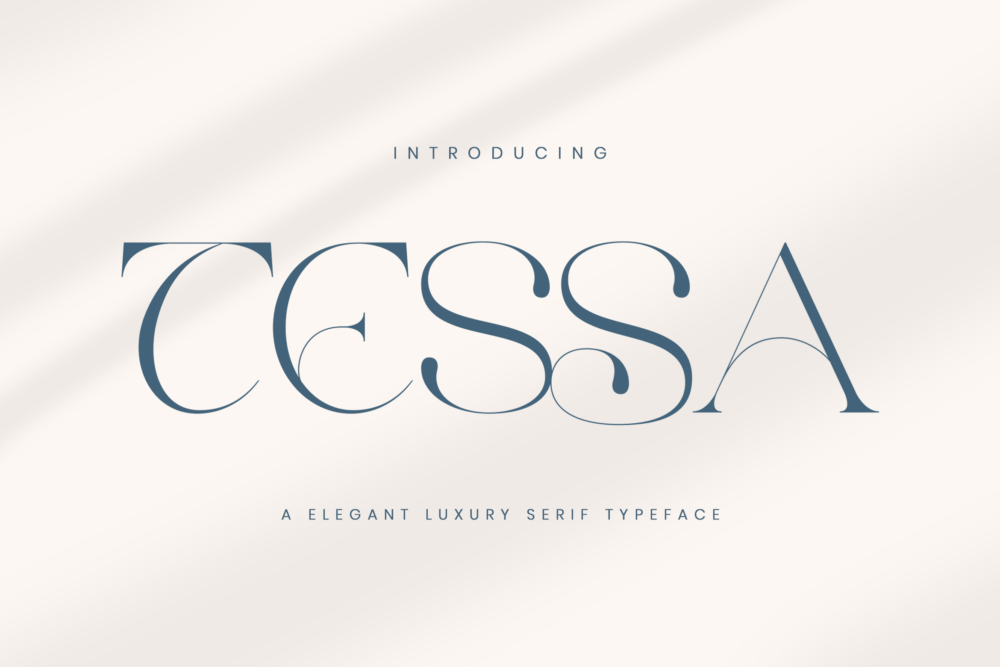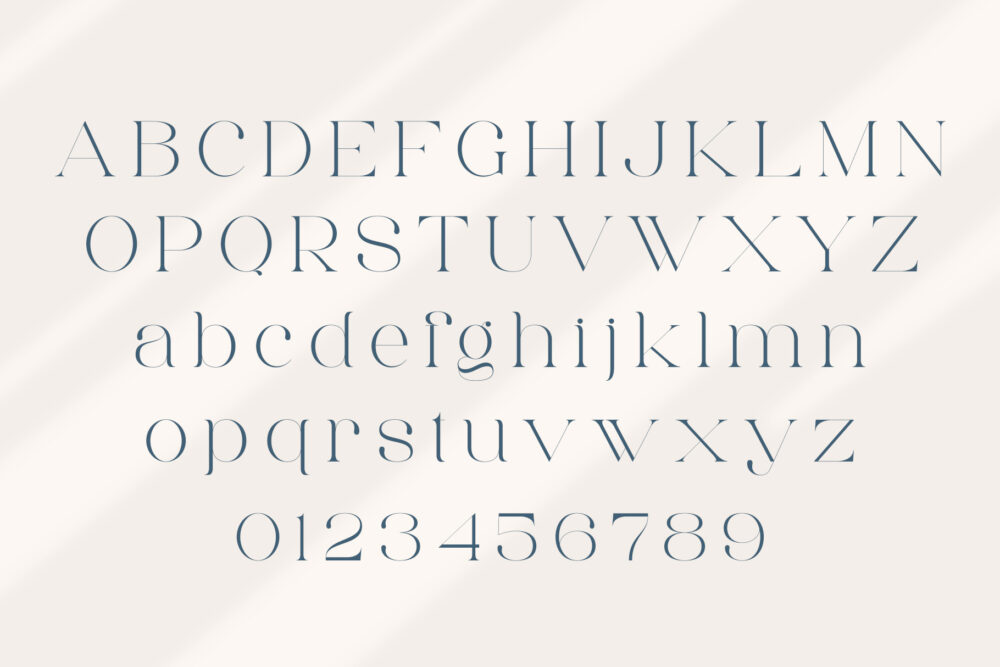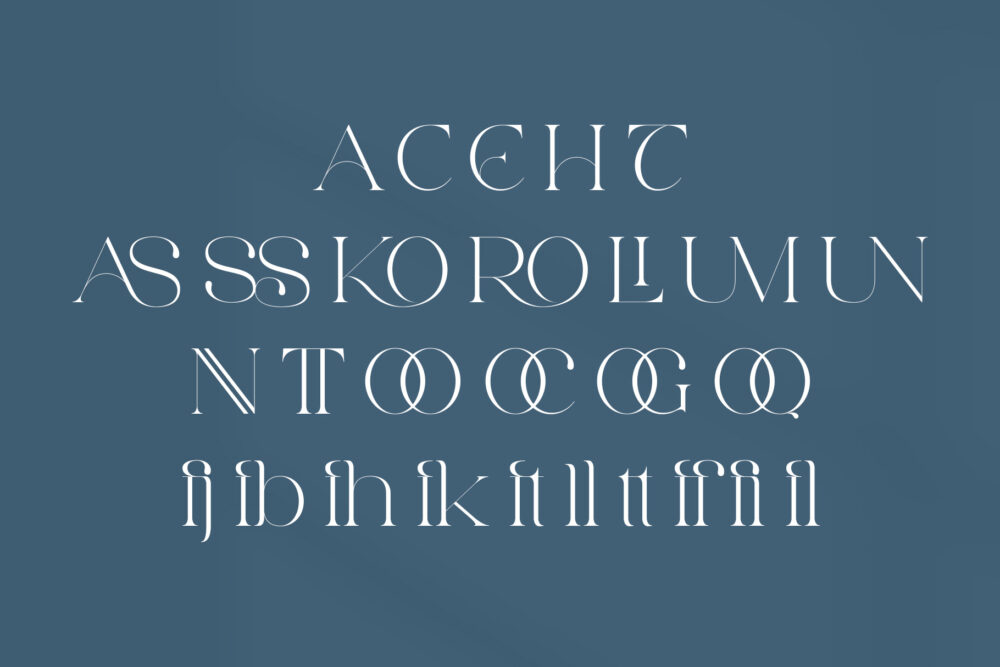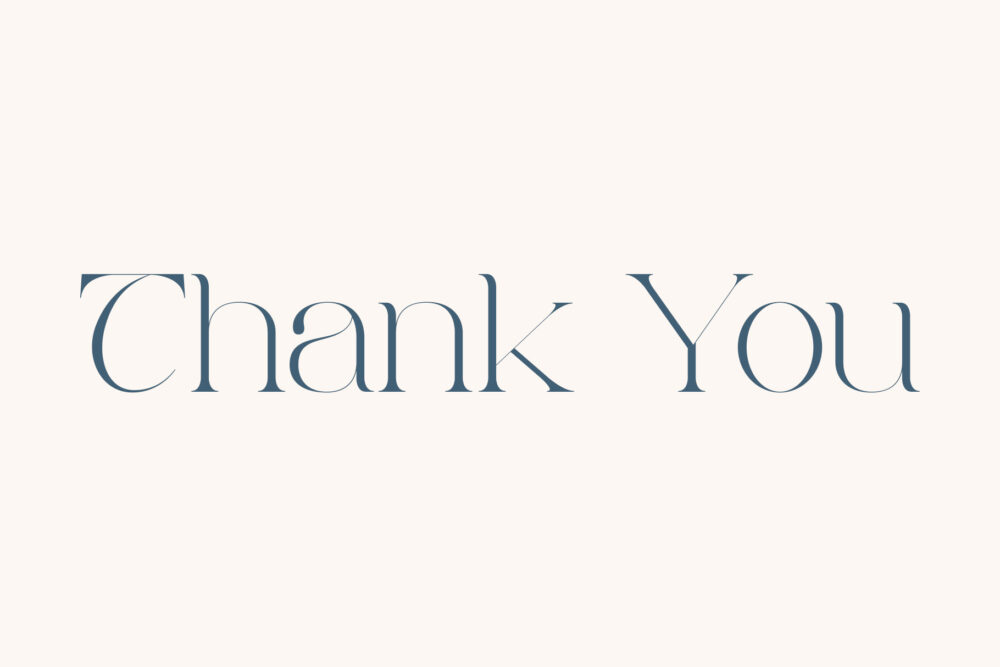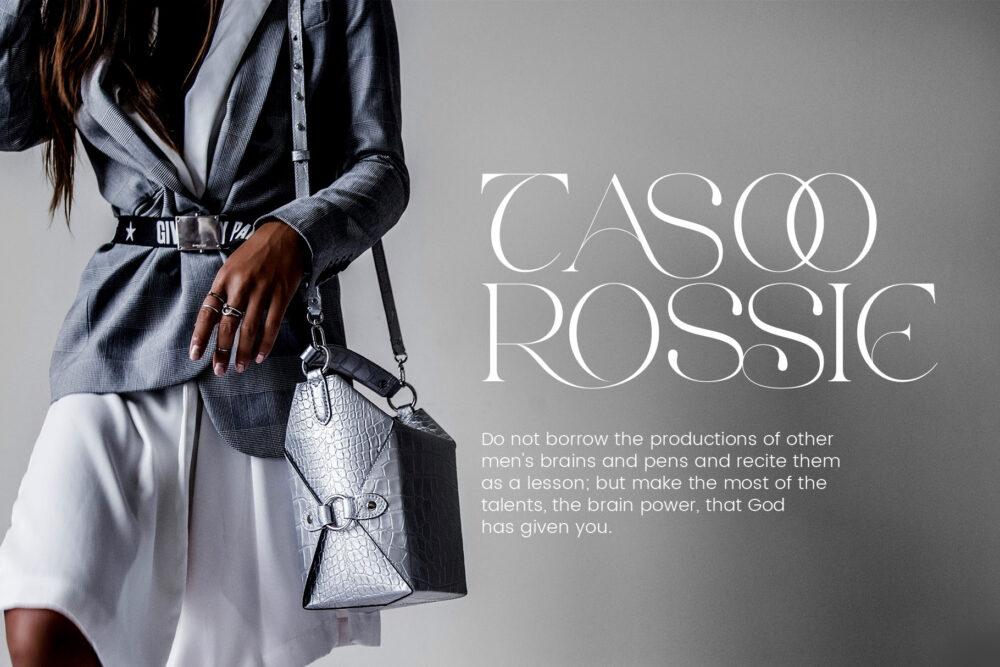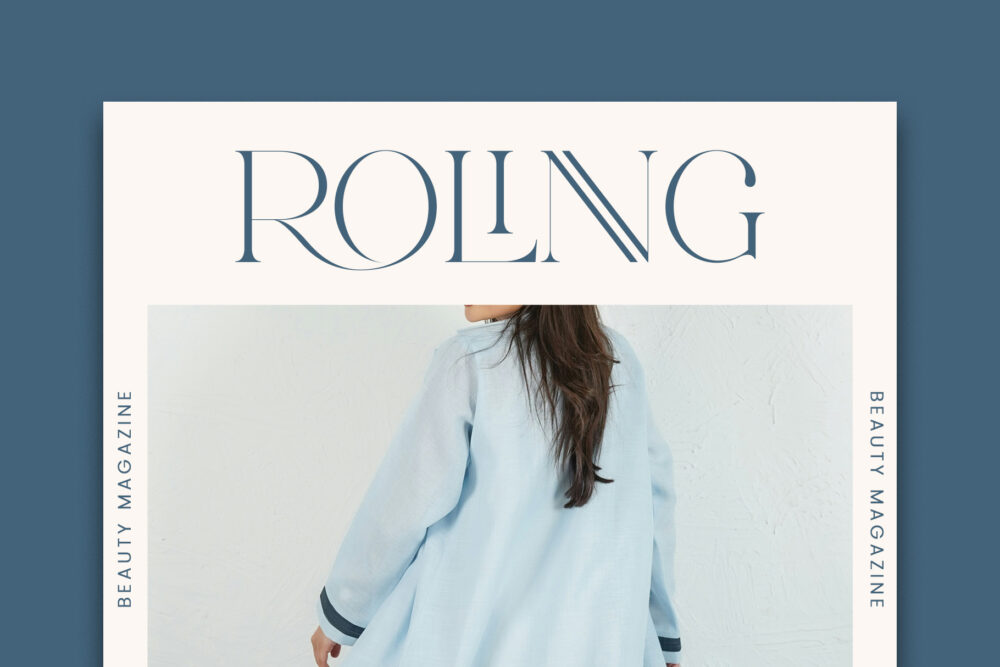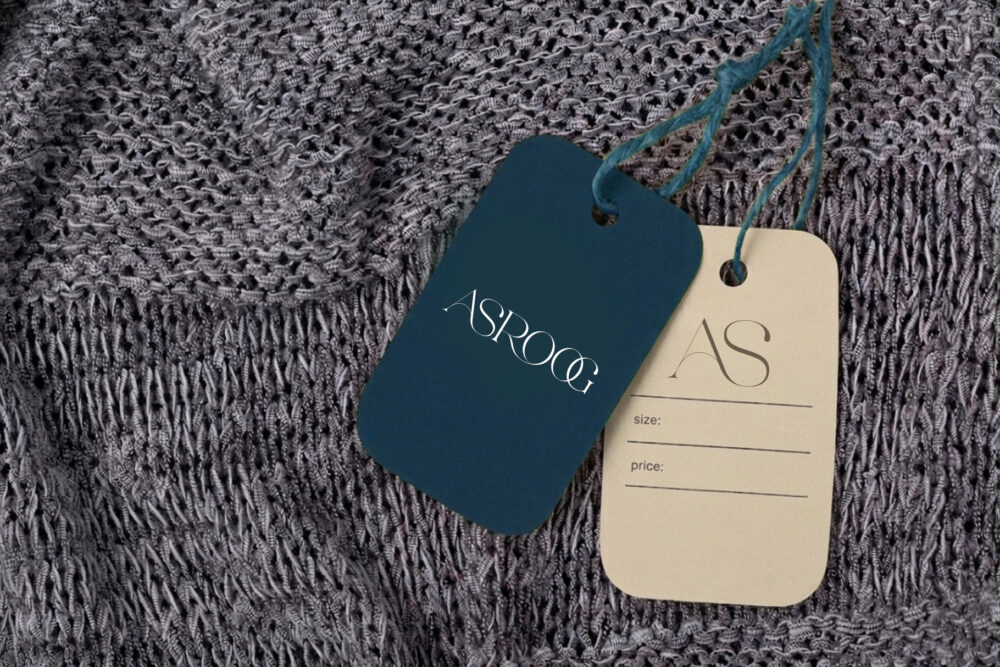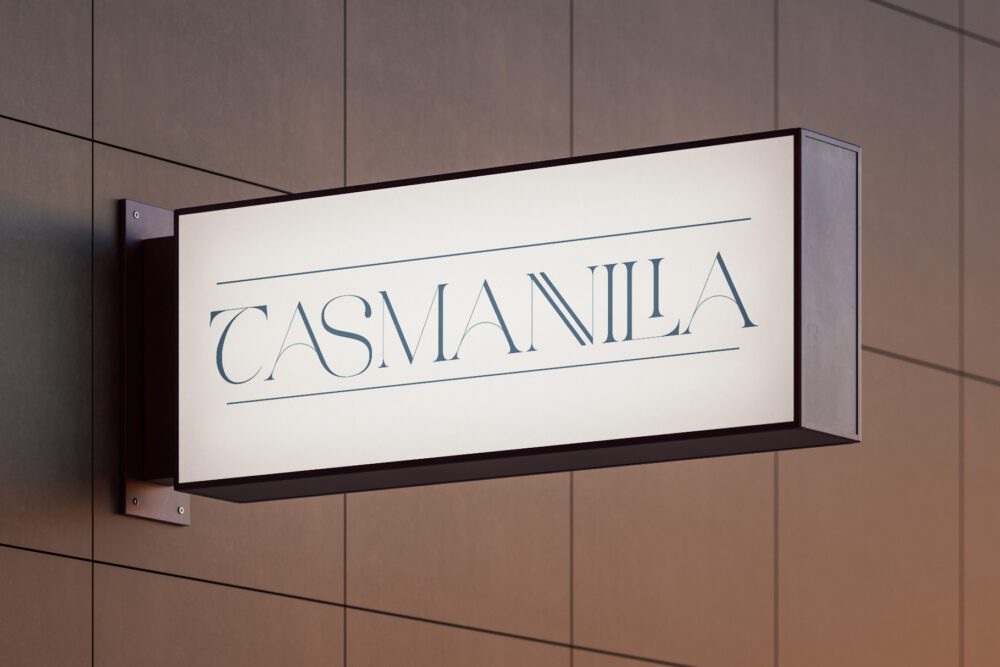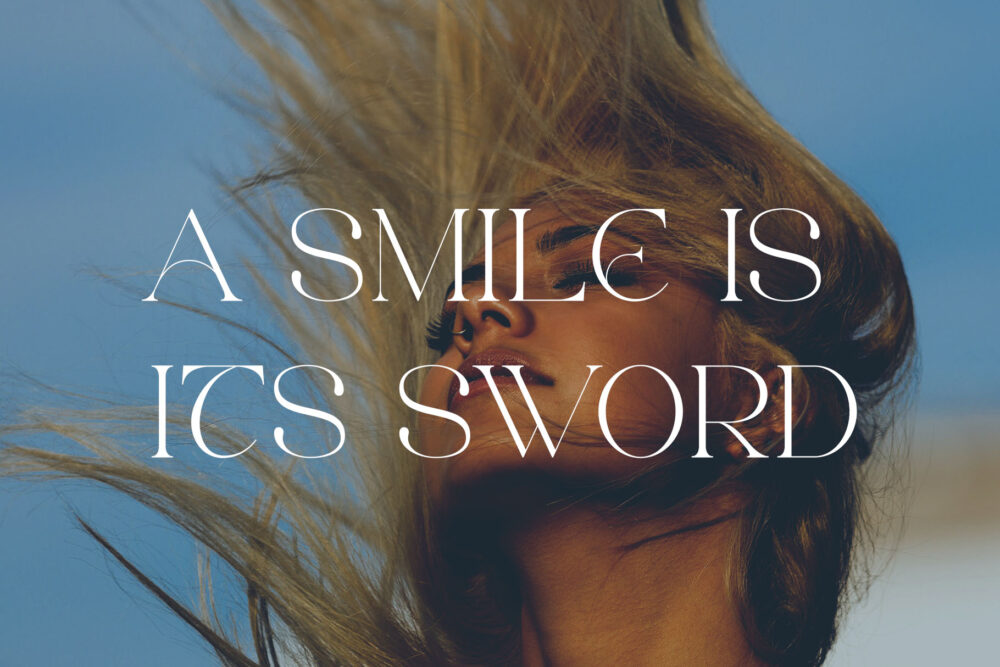
Tessa
Tessa Stylish Ligature Typeface, inspired by the famous minimalist logo perfect for the purposes of designing templates, brochures, videos, advertising branding, logos and more.
Tessa – Elegant Serif Font